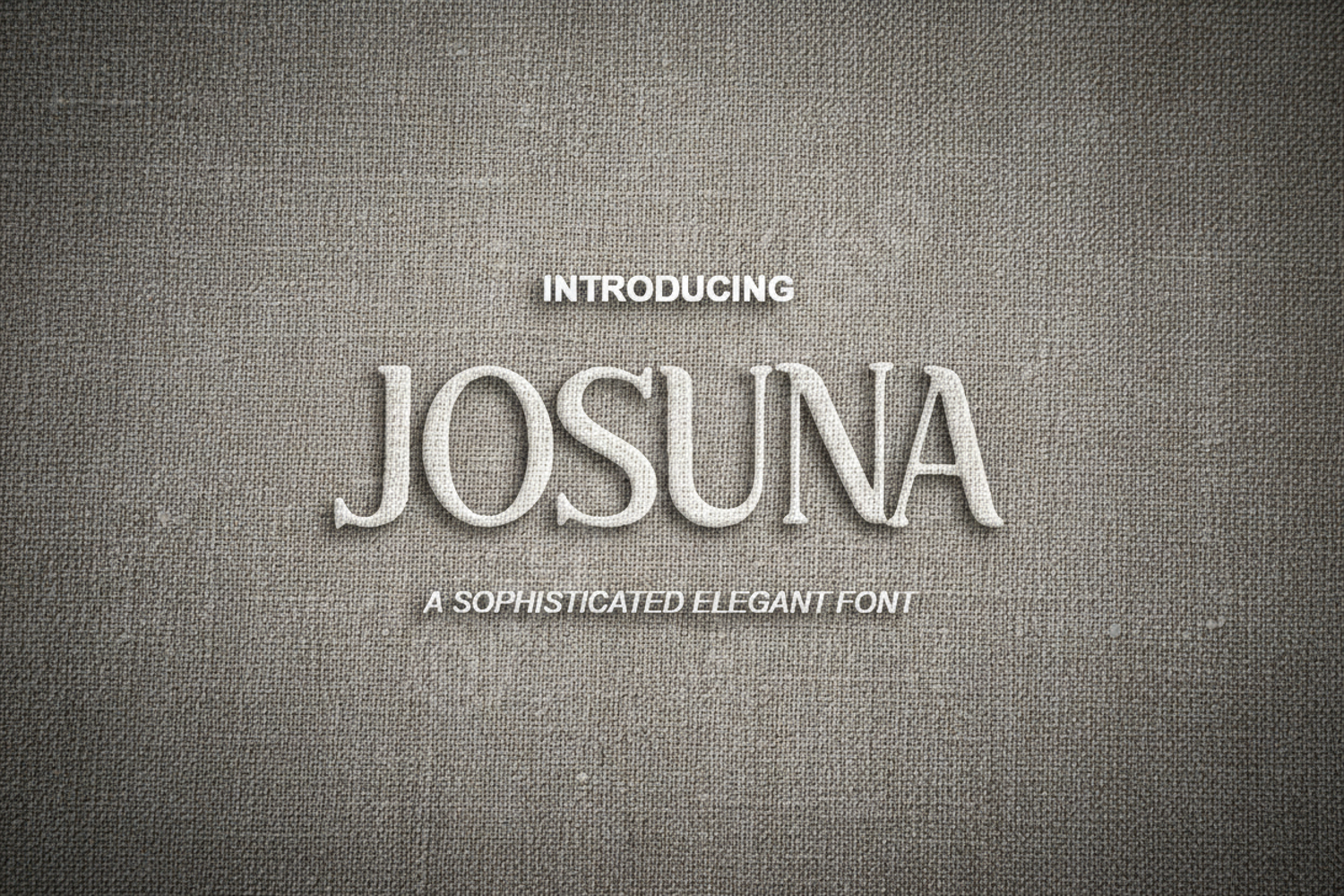
Josuna - Sophisticated Modern Serif Typeface
Josuna
Elevate your creative projects with Josuna, a premium serif font designed for those who value sophistication and timeless style. This typeface seamlessly blends traditional serif characteristics with a clean, contemporary aesthetic, ensuring your designs remain professional and visually striking. Whether you are working on a high-end fashion brand or a minimalist editorial layout, Josuna provides the versatility and elegance needed to make a lasting impression.
- Complete Uppercase and Lowercase Alphabet
- Comprehensive Numbers and Punctuation
- Extensive Multilingual Support
- Luxury Branding and Corporate Identity
- Editorial Layouts and Magazine Headers
- Elegant Wedding Stationery and Invitations
- Minimalist Logo Design and Signage
- High-end Product Packaging
- Sophisticated Social Media Graphics and Quotes